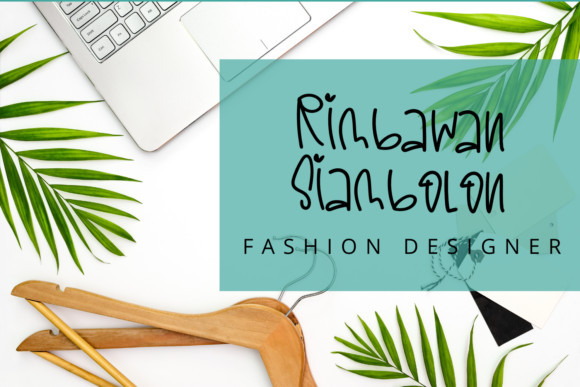
Little Giant Font
Little Giant is cute and quirky handwritten font. Fall in love with its incredibly versatile style and use it to create spectacular designs!